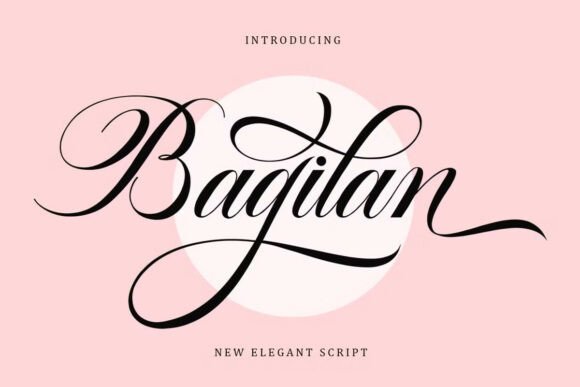
Bagilan: A Premium Script for Creative Projects
A First Impression of Bagilan
When I first laid eyes on Bagilan, it immediately struck me as a font with a distinct personality. The flowing, cursive style exudes elegance and grace, making it a perfect fit for projects that require a touch of sophistication. The letters have a fluid, almost hand-painted quality, which adds to its charm and makes it stand out in the world of modern typography.
The Visual Personality of Bagilan
Bagilan carries a romantic and whimsical vibe, ideal for creating a soft, inviting atmosphere. It's not just a typeface; it's a statement. The way the letters connect and flow gives it a natural, organic feel, making it a great choice for brands or designs that want to convey a personal, human touch. This font is particularly well-suited for wedding invitations, luxury branding, and high-end packaging design.
Performance in Real-Life Design Situations
In logo design, Bagilan can be a powerful tool. Its elegant script style can create a memorable and luxurious brand mark. For brand identity, it can help establish a premium, sophisticated image. In packaging design, especially for beauty products or gourmet foods, Bagilan can add a layer of refinement and class.
- Use Bagilan for product labels where a touch of elegance is needed.
- It shines in posters and flyers that aim to capture attention with a beautiful, flowing headline.
- For wedding invitations and event flyers, Bagilan can set the tone for a special occasion.
Web and Digital Applications
When it comes to web design, Bagilan can be used effectively in website headers and blog graphics. It adds a personal, engaging element to the design, making it more relatable and visually appealing. For social media graphics and digital ads, Bagilan can help your content stand out in a crowded feed.
Practical Considerations for Using Bagilan
While Bagilan is a versatile and beautiful script font, it's important to use it judiciously. It works best in large headlines and short phrases where readability is less of a concern. For brand marks, quotes, and decorative accents, it can be a standout choice. However, using it for longer text or body copy can compromise readability and clarity.
Designer Notes and Best Practices
- Test Bagilan in black and white to see how it holds up without color distractions.
- Check its readability at small sizes to ensure it remains legible in various contexts.
- Try it on real mockups to see how it integrates into different design elements.
- Compare uppercase and lowercase versions to find the best fit for your project.
- Review the kerning and spacing to ensure a balanced and professional look.
- Experiment with font pairing—Bagilan can complement serif fonts, sans serif fonts, and even other manual fonts.
Impact on Brand Consistency and Audience Engagement
Using Bagilan can significantly enhance brand consistency by adding a consistent, elegant touch across all visual materials. It helps in building audience trust and recognition, especially in industries where a premium, refined image is crucial. The font's ability to create a strong visual mood and engagement makes it a valuable asset in editorial design and printable design projects.
Final Thoughts on Bagilan
Overall, Bagilan is a premium font that offers a unique and elegant solution for a wide range of creative projects. Whether you're designing a wedding invitation, a luxury product label, or a high-end website header, Bagilan can add a touch of sophistication and personality. Just remember to use it wisely and test it thoroughly to ensure it meets the needs of your specific project. Happy designing!